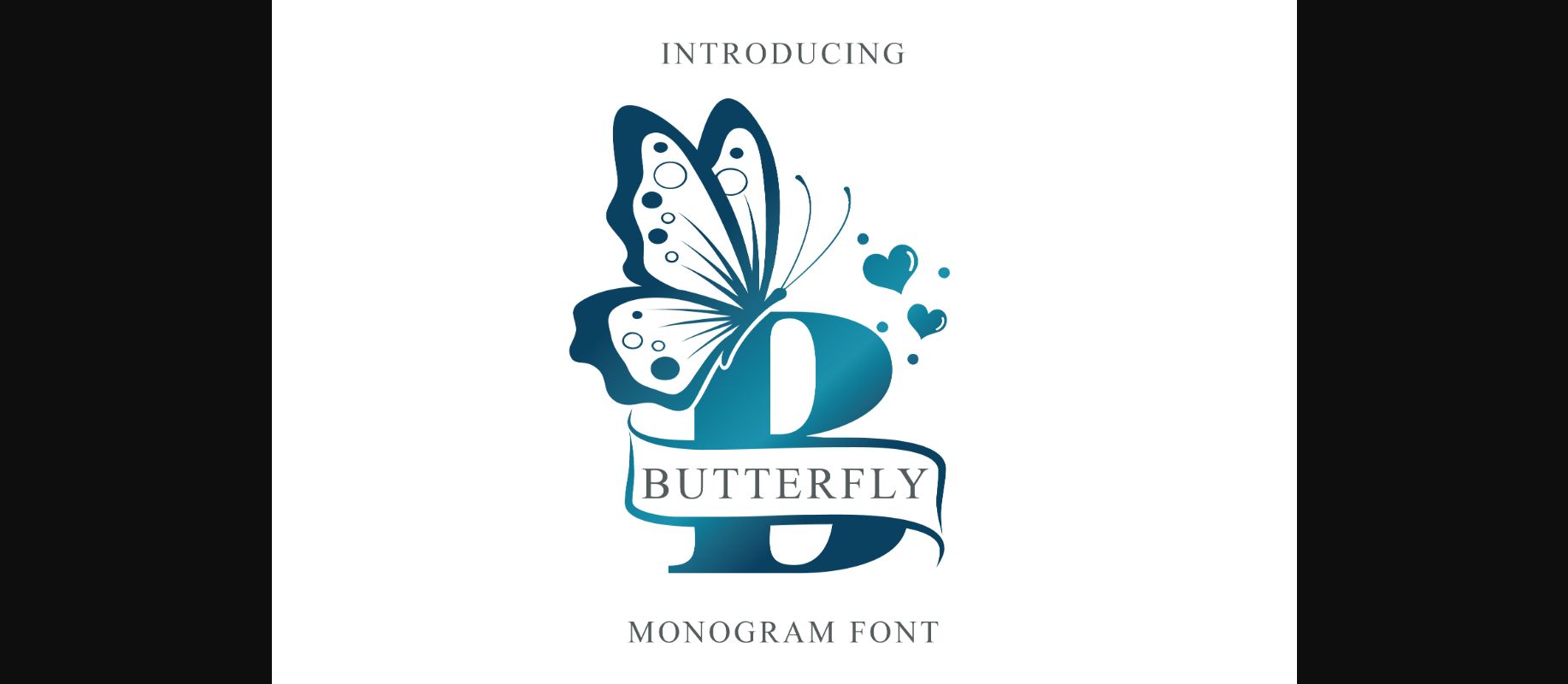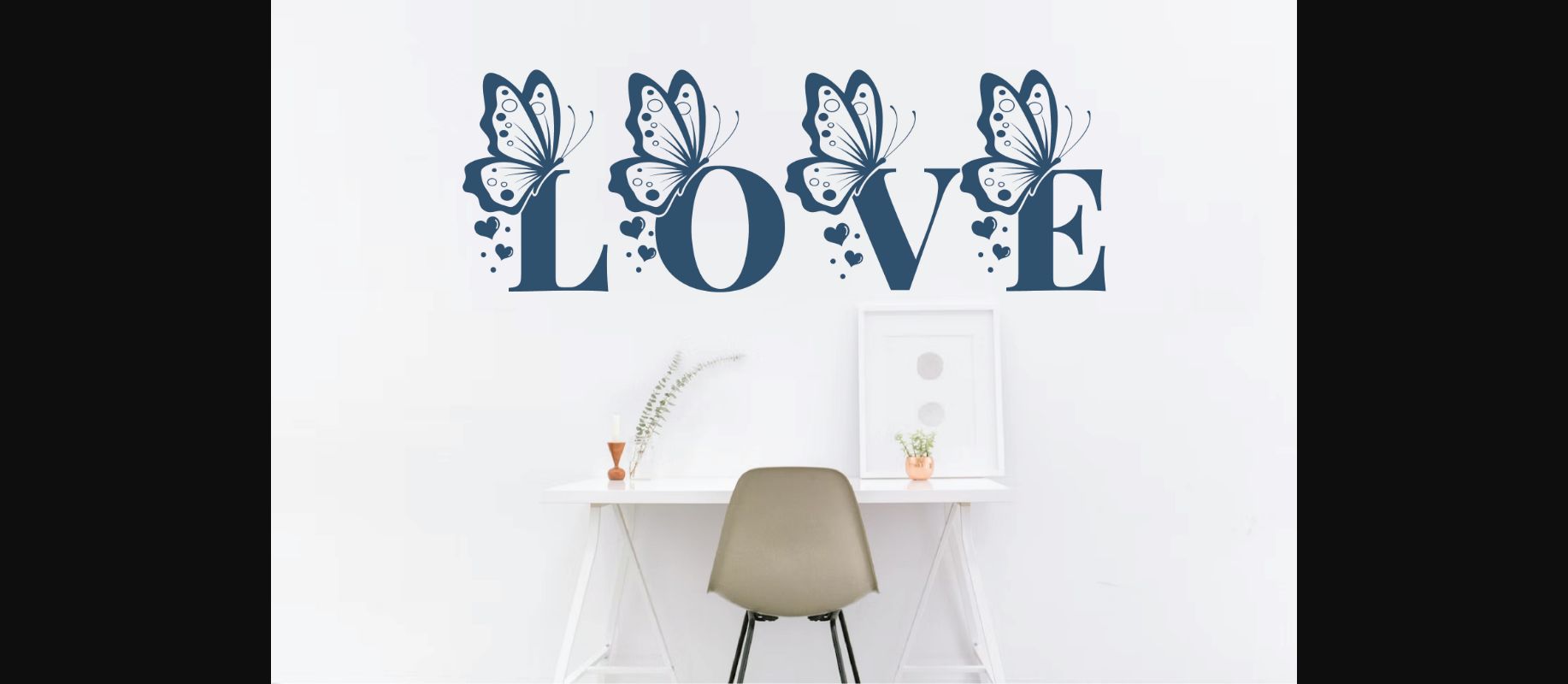
About Butterfly Monogra Font
Butterfly Monogram is a new elegant decorative font, featuring lovely ornaments. Fall in love with its authentic feel and use it to create gorgeous stationary art, eye-catching social media posts, and cute greeting cards.